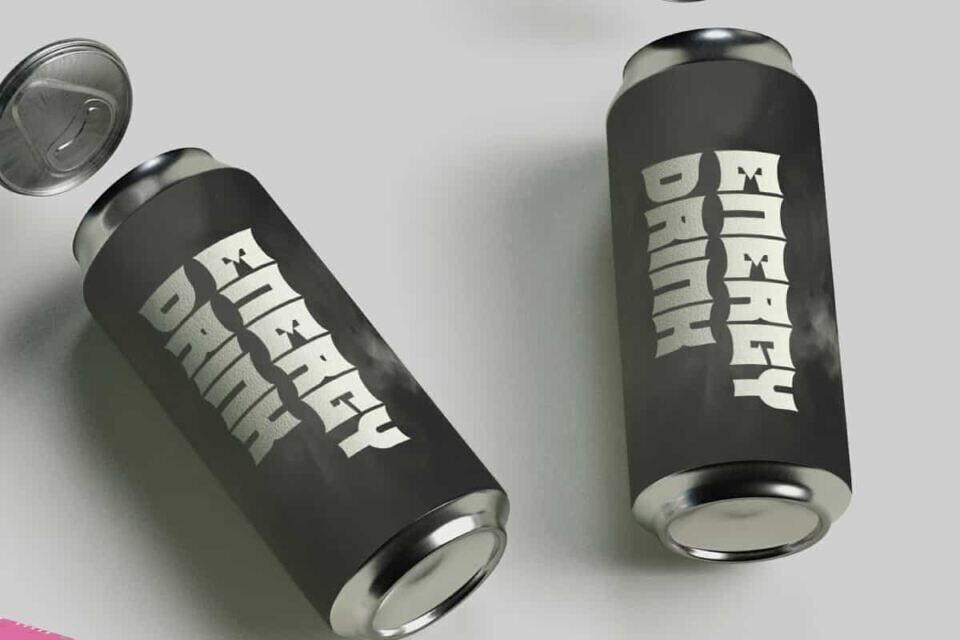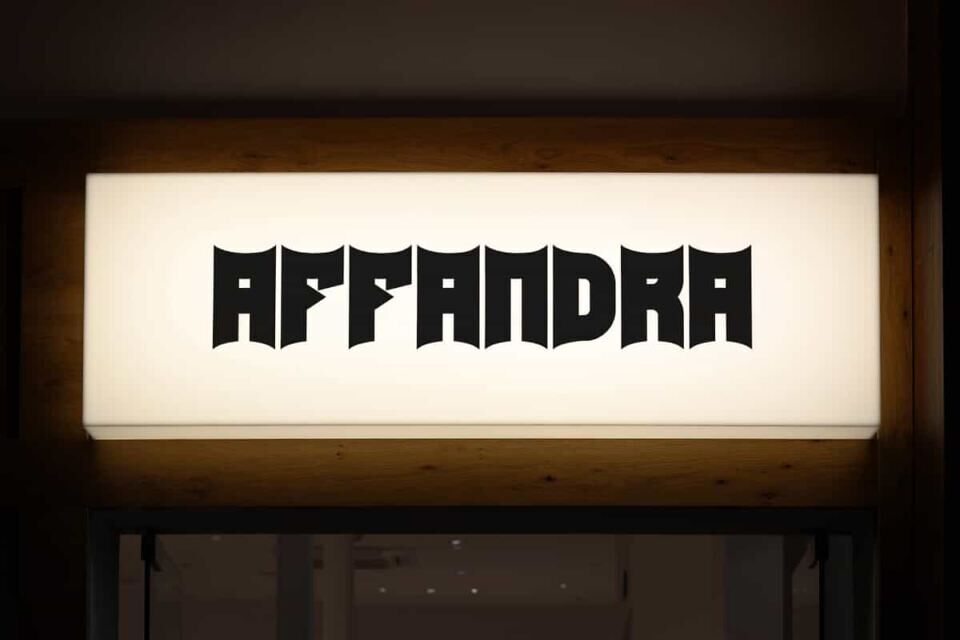
Bat Ego Font
Bat Ego Font is a decorative super hero Batman from Gotham theme font created by NoahType. This font has thick characters with sharp edges so that its appearance is unique. It will be perfect for any designs, such as signage, label, stationery, custom design, poster, brand image, cover, invitation, marketing material, menu, printing, product packaging, quotes, website, and many more!
Bat Ego Font includes full set of ALL CAPS for Uppercase and Lowercase Basic Characters, Numerals, Punctuation, Symbol, and Alternate character. This font will make your design awesome and also a perfect choice for many industries, such as game, movie, barber shop, fashion, event or festival, accessories, advertising, art, café, printing, publishing, etc.